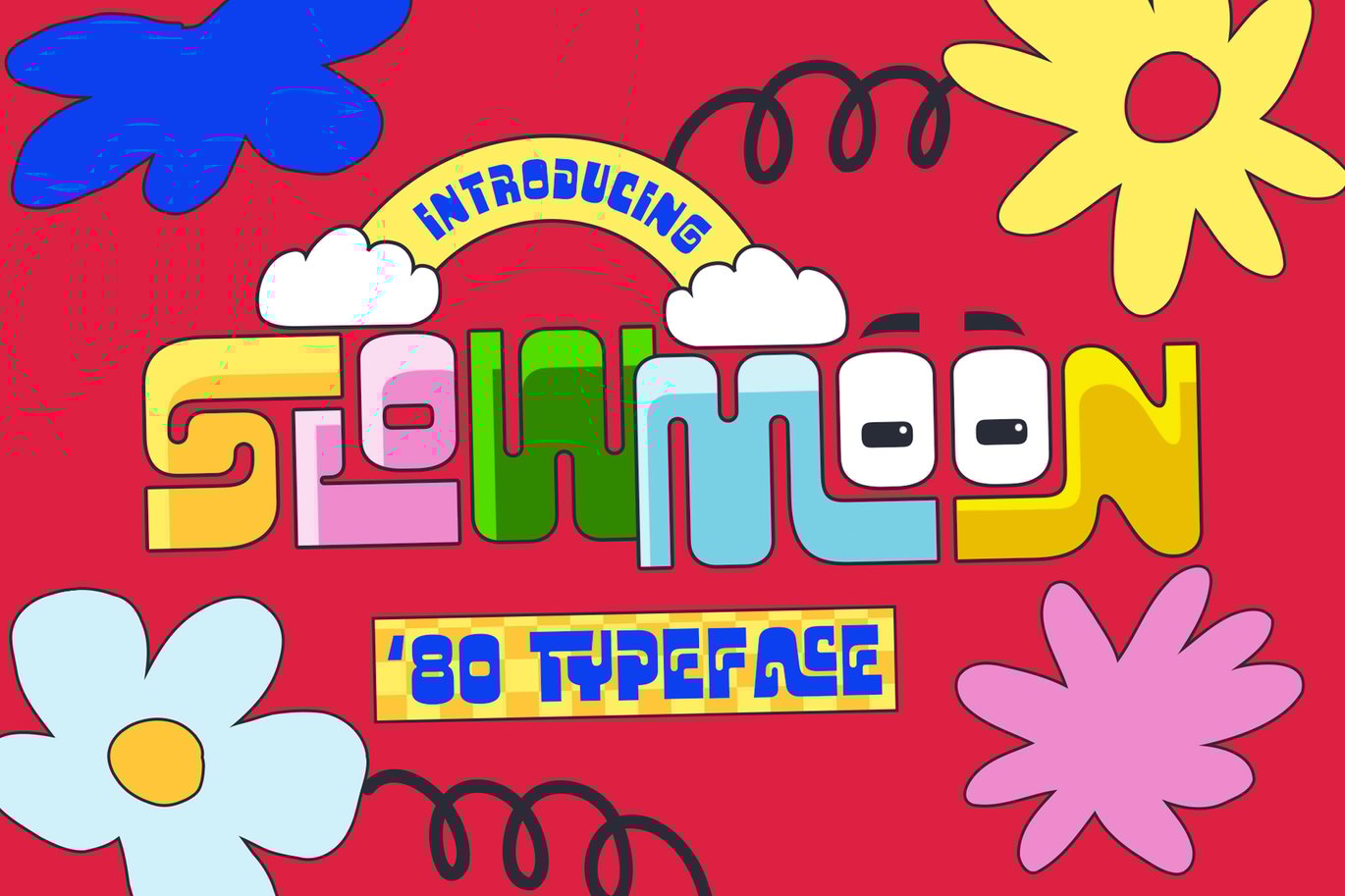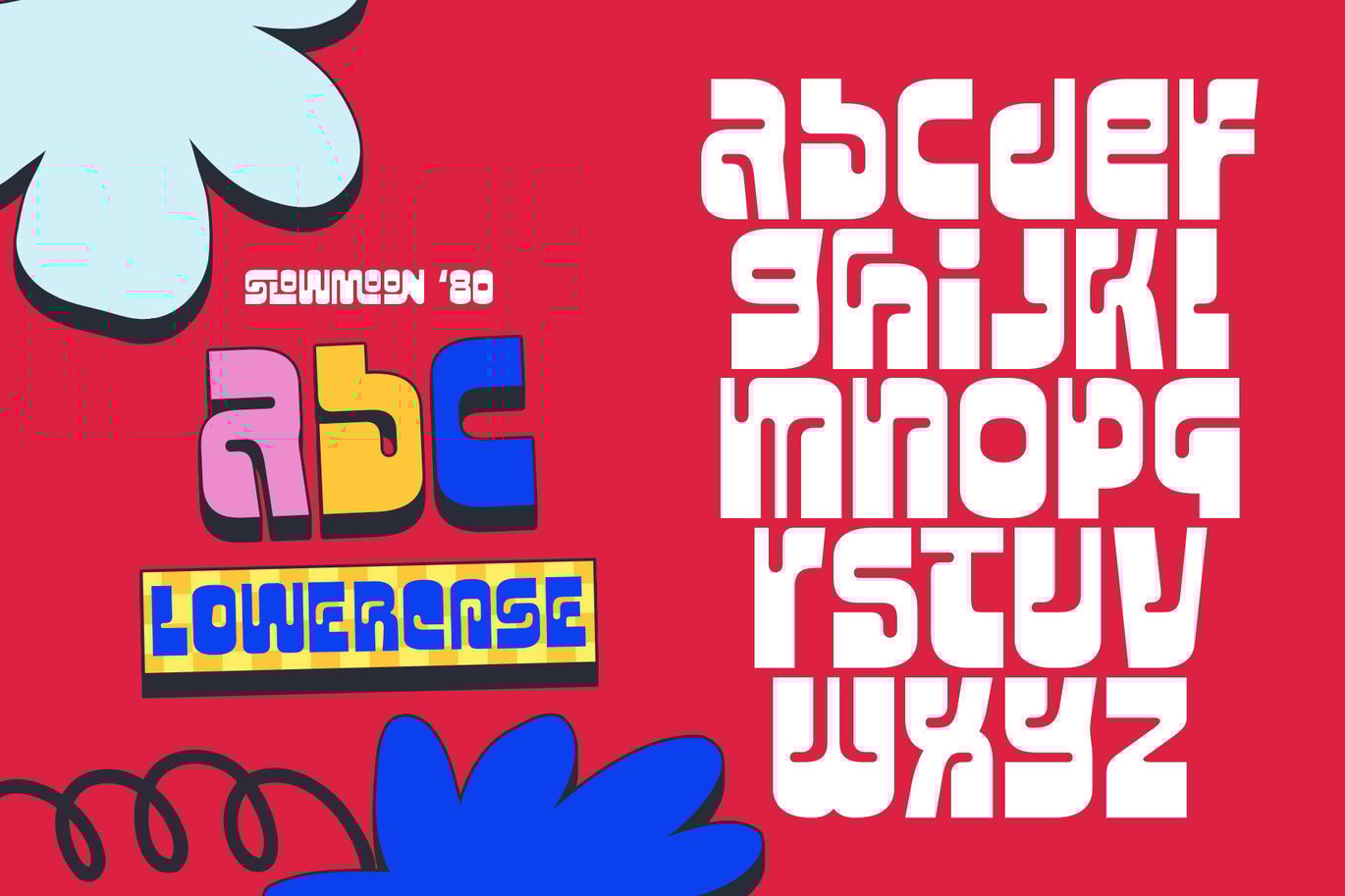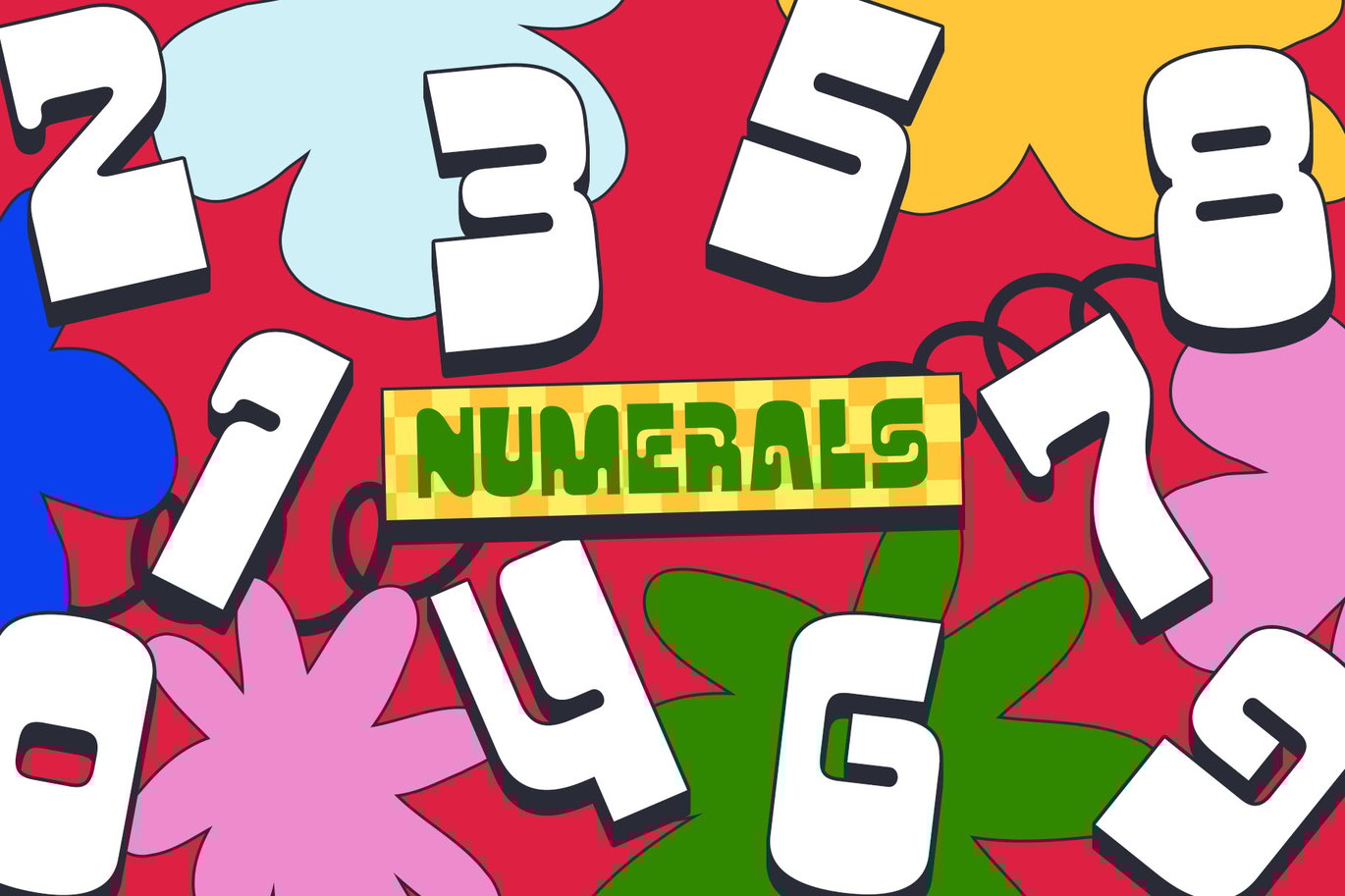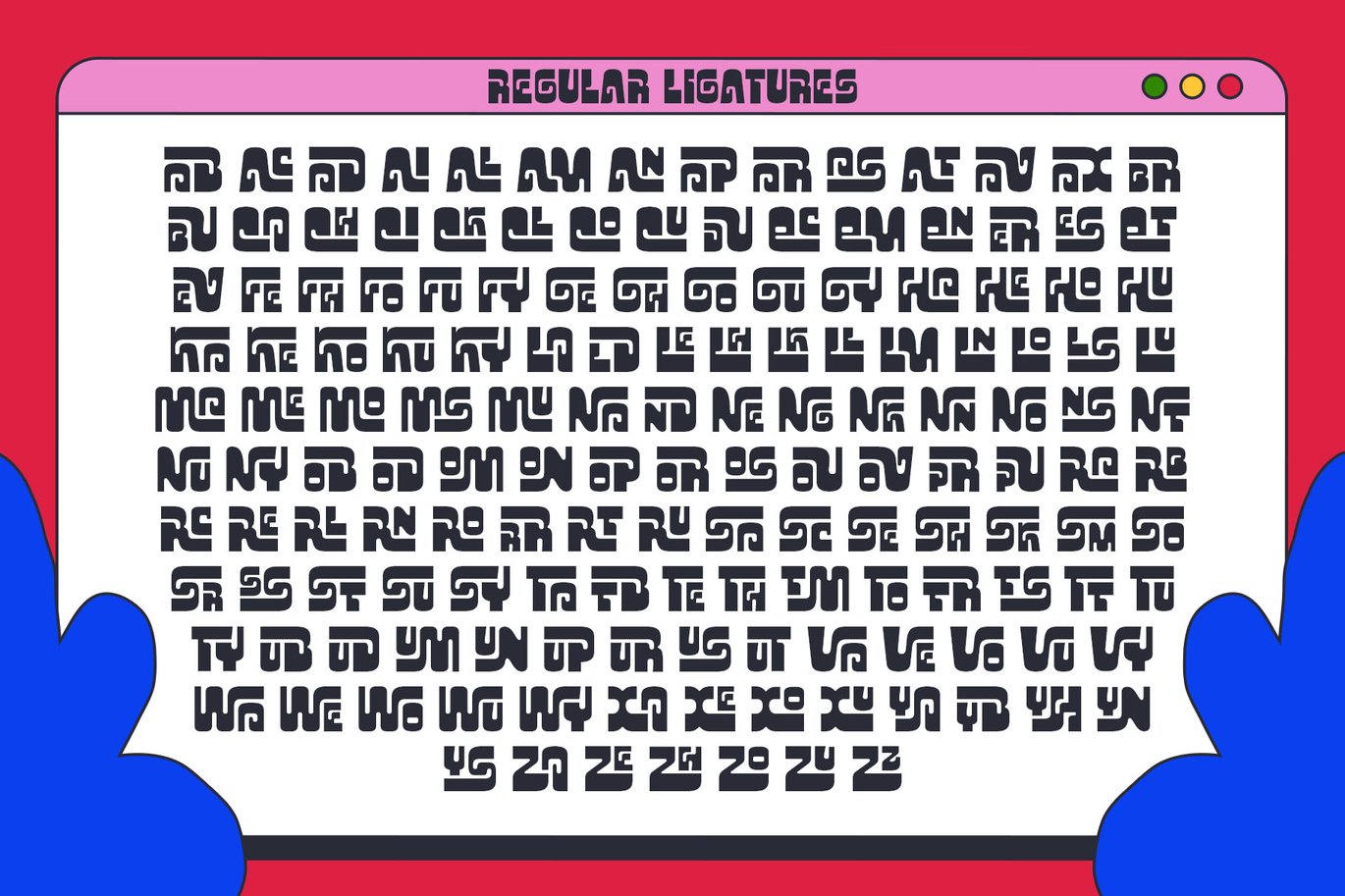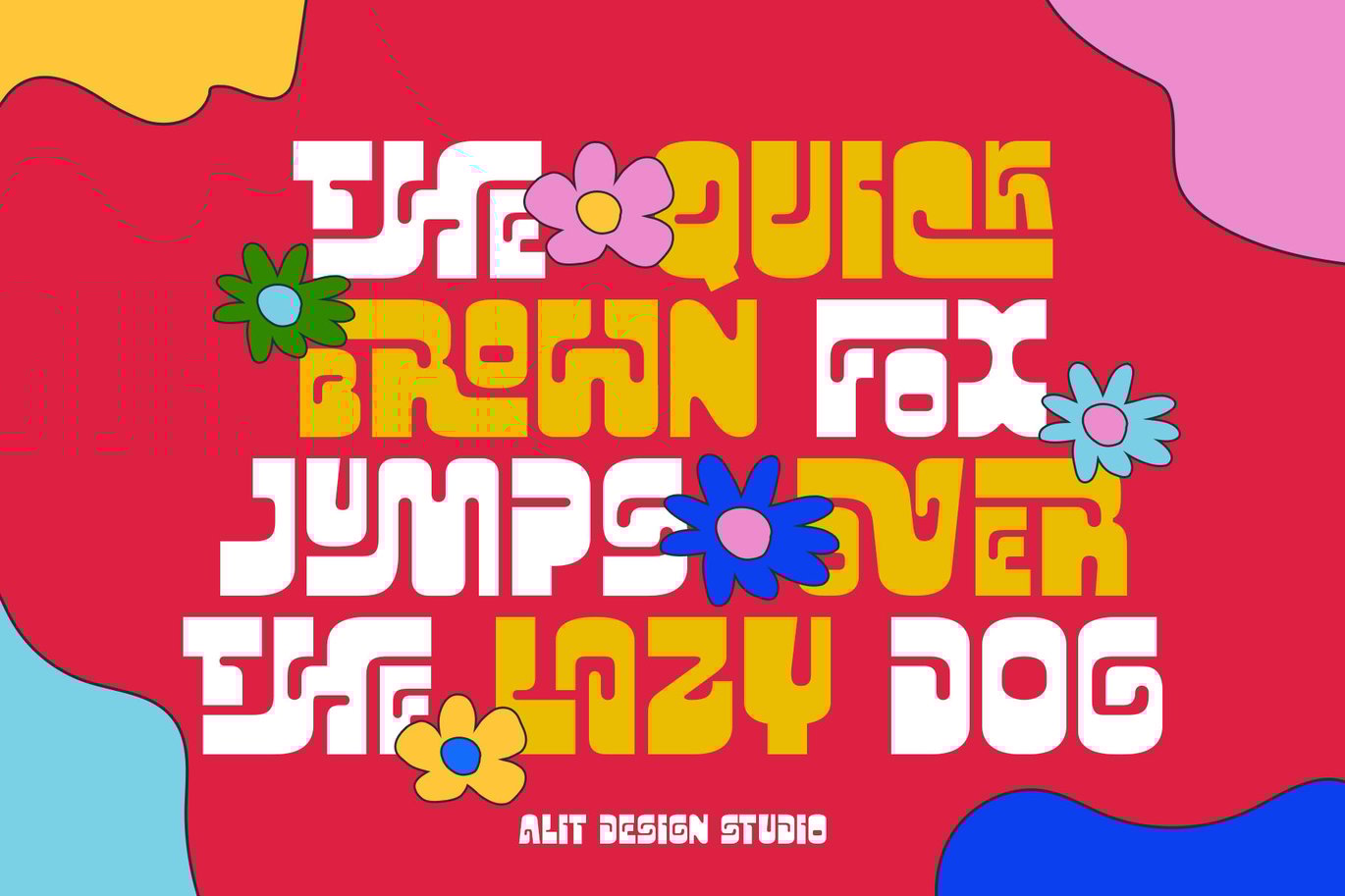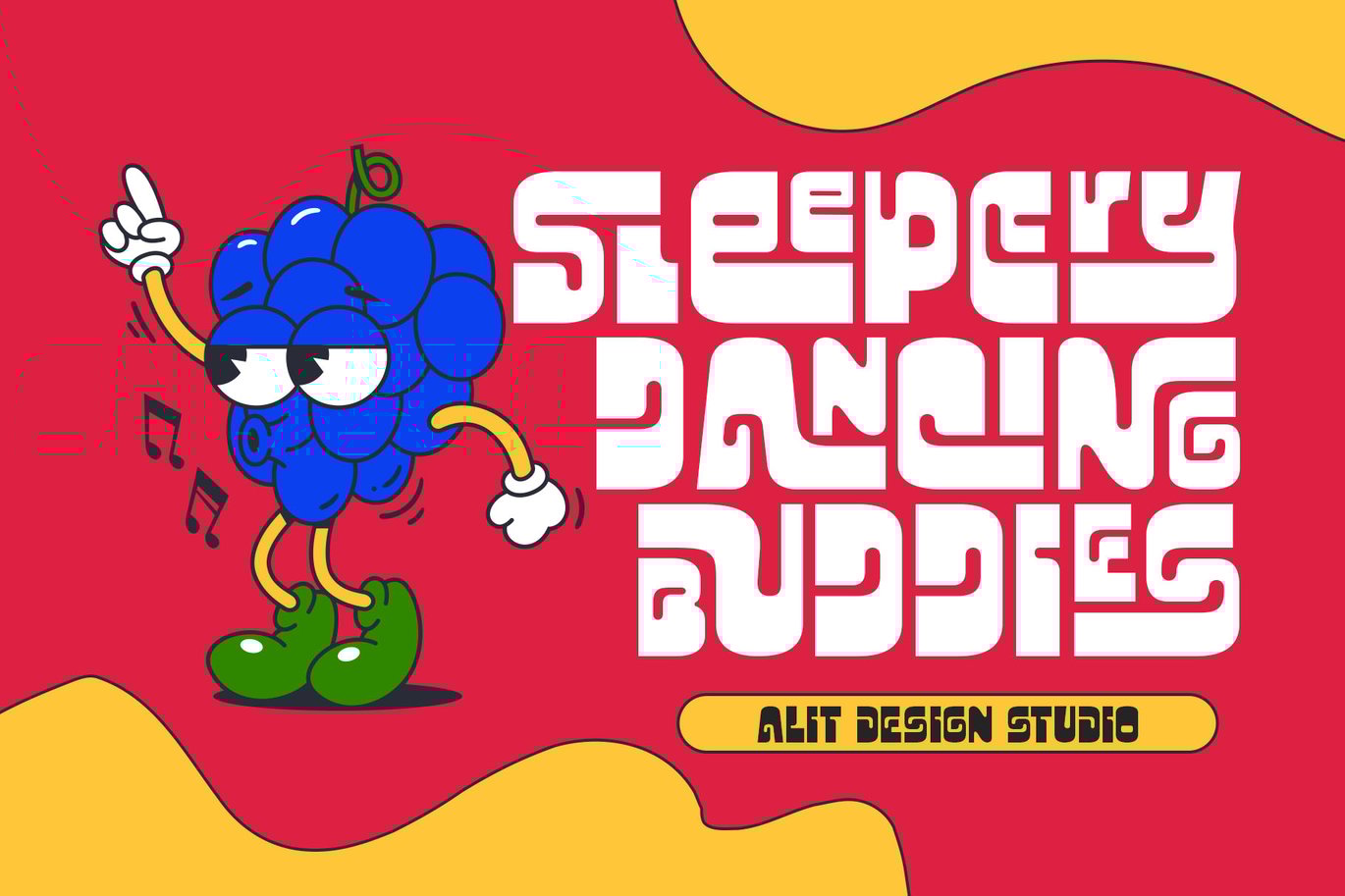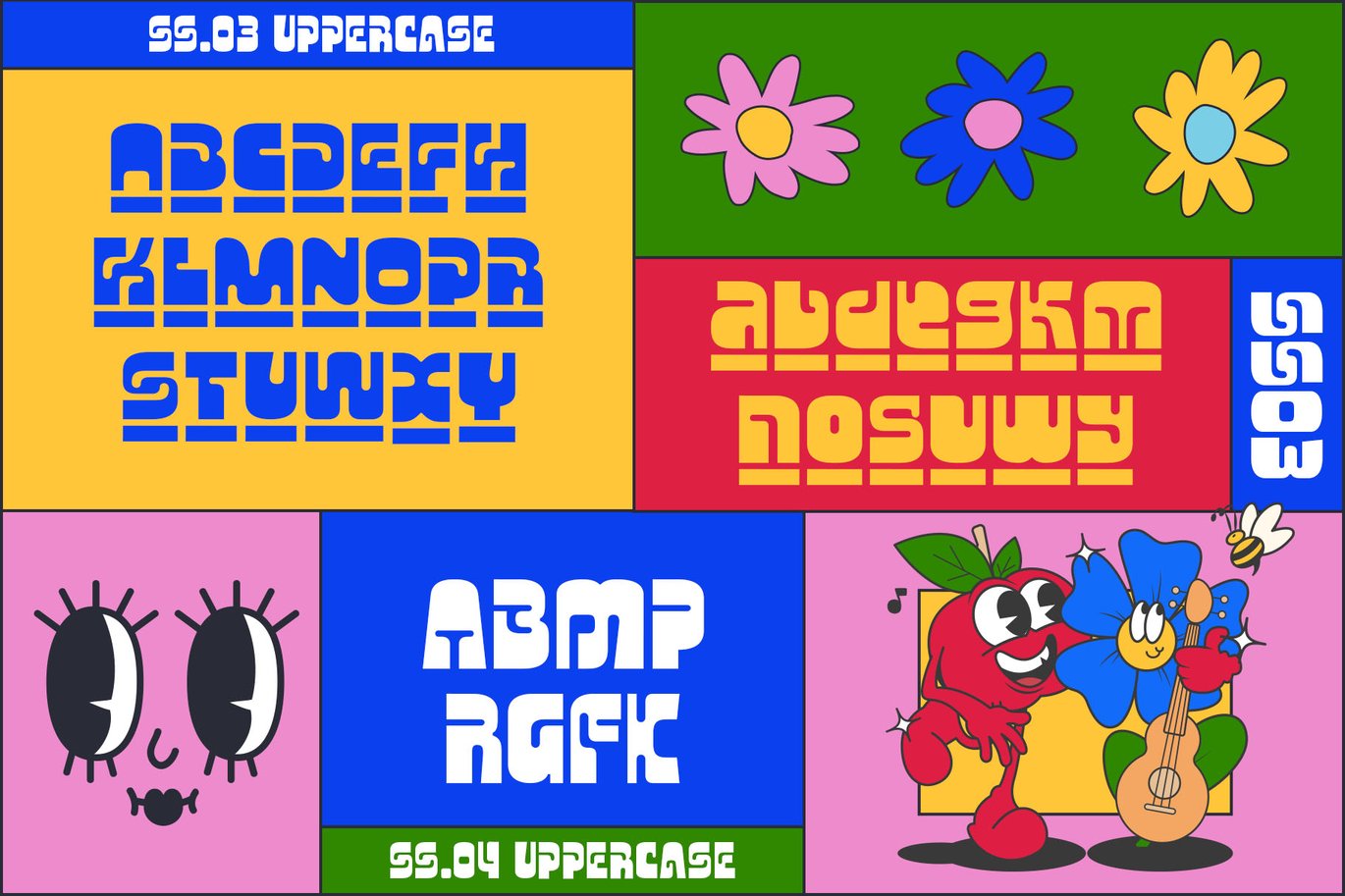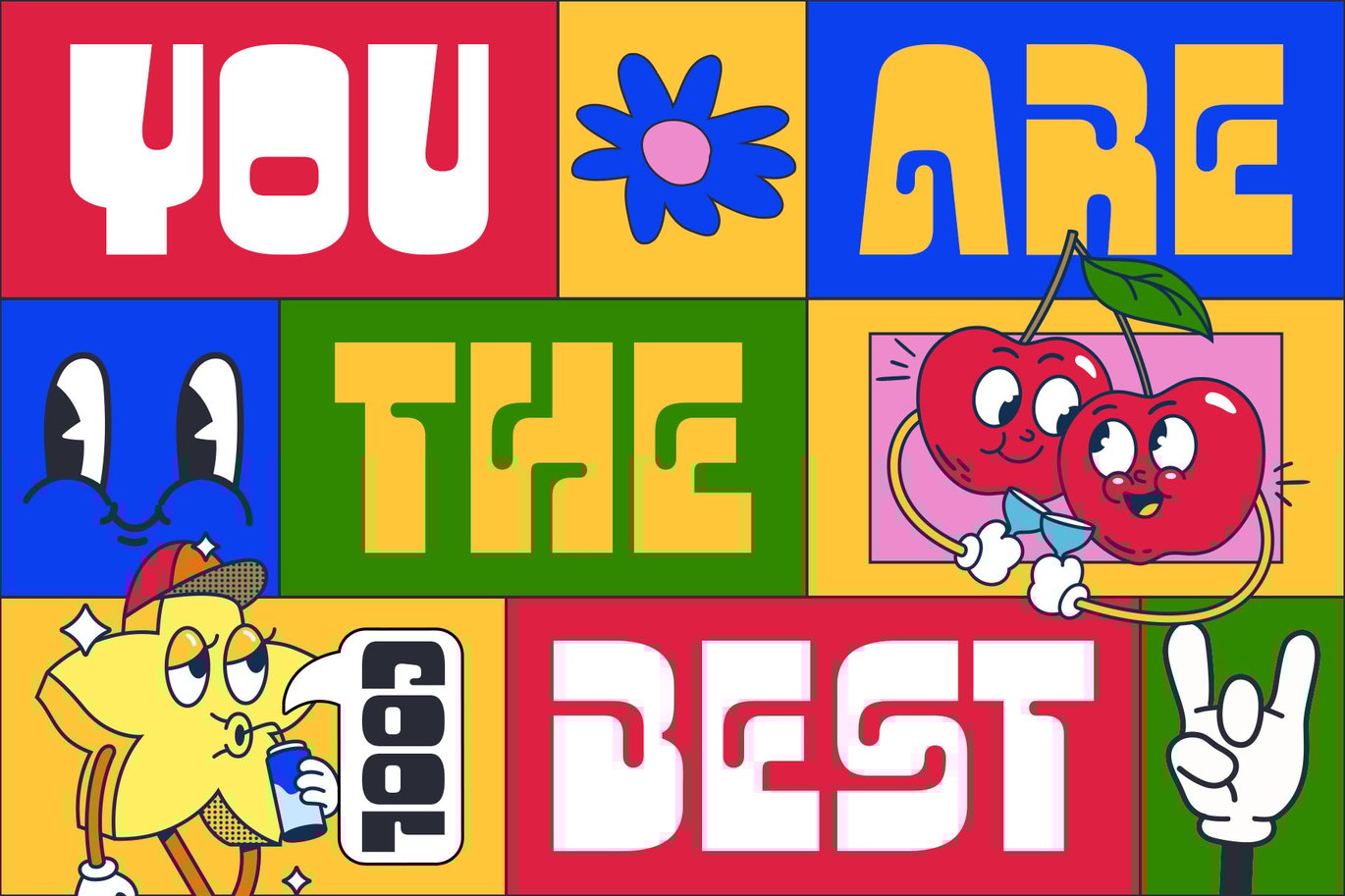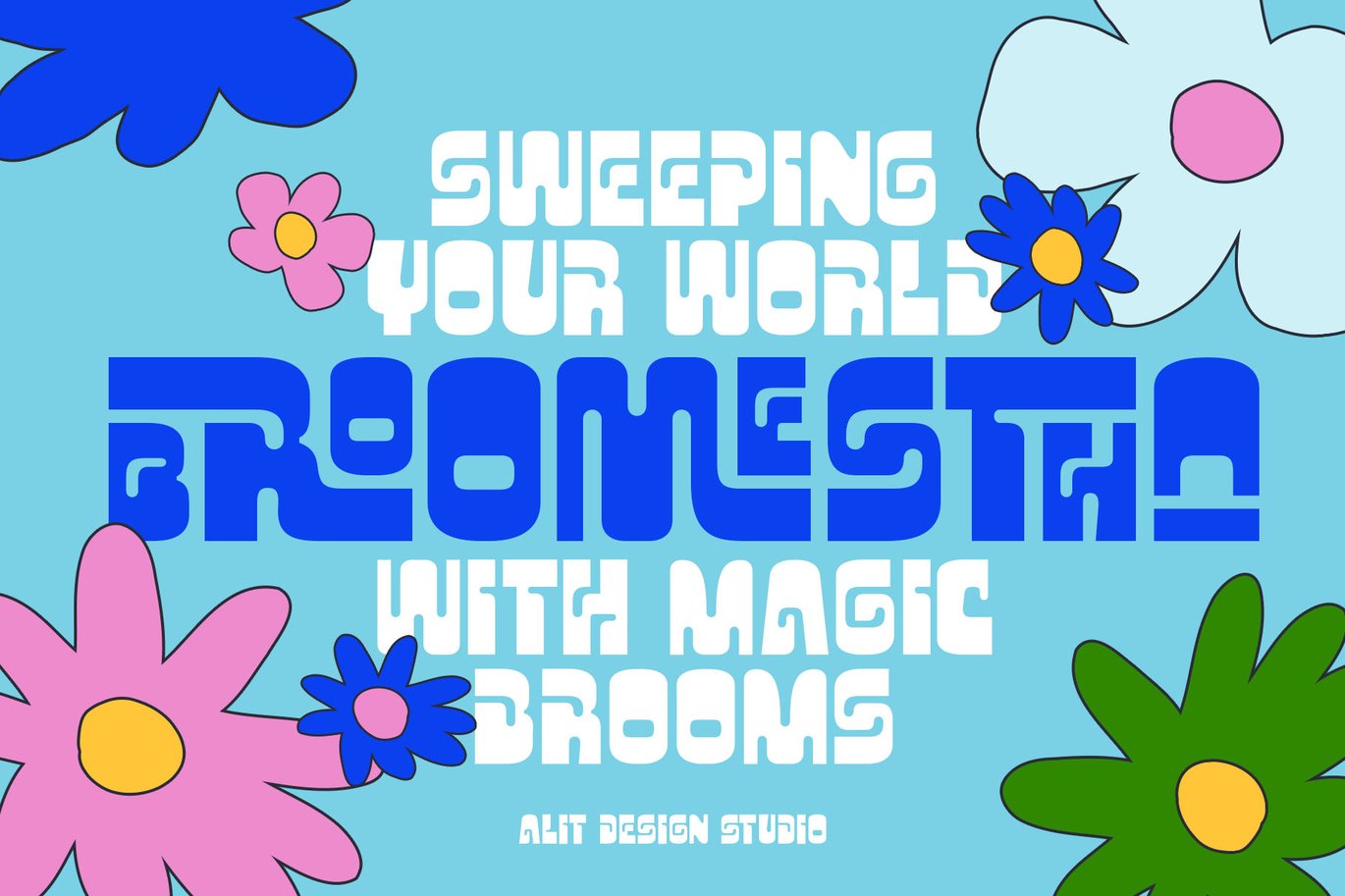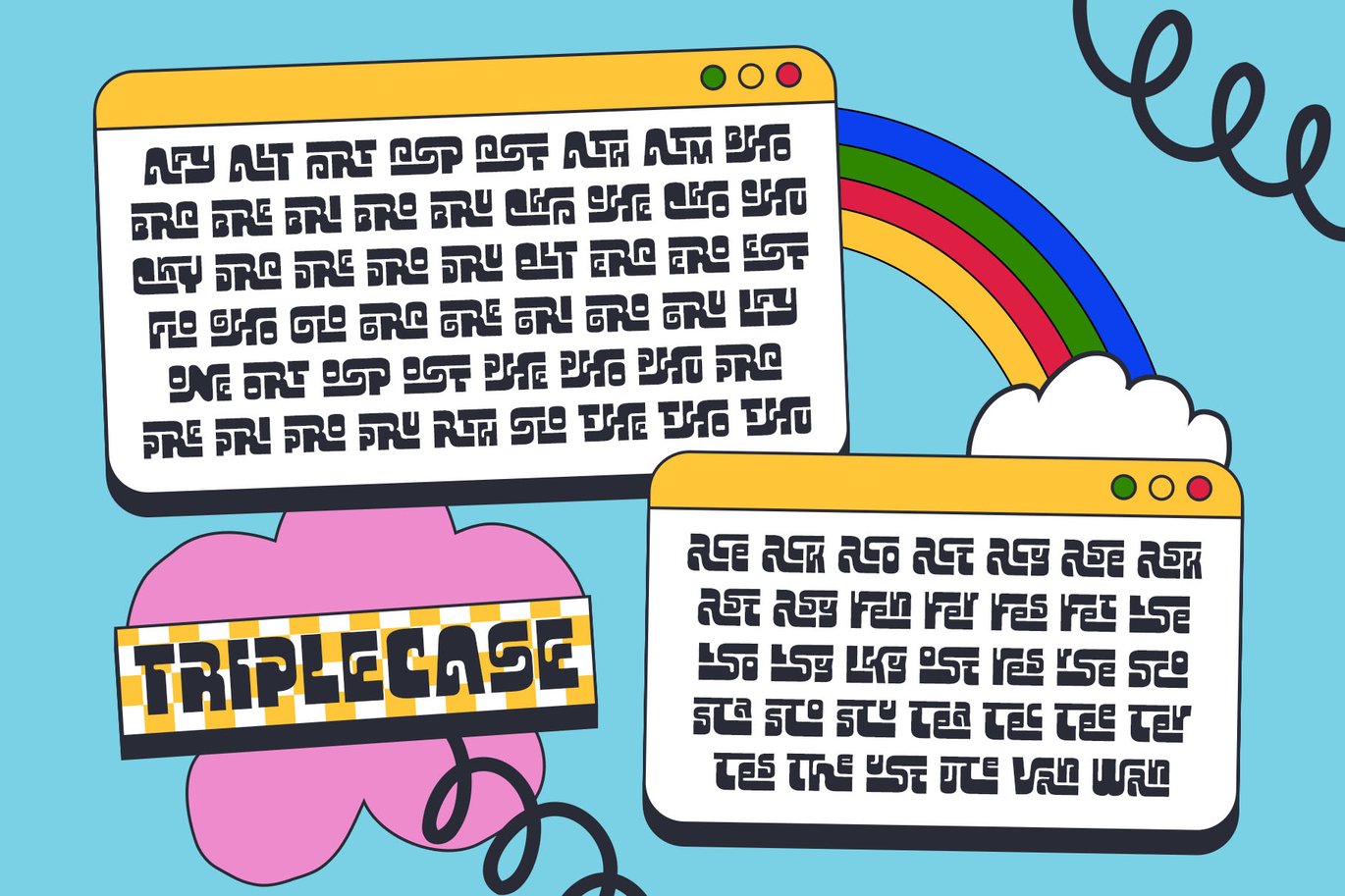
Slow Moon Retro Display Font
Introducing Slow Moon – The Retro Display Font with Timeless Elegance
Unveil the beauty of bygone eras with Slow Moon, a font that encapsulates the essence of retro design while offering an extensive range of dynamic alternatives and ligatures. With 976 meticulously crafted character glyphs, multilingual support, and PUA Unicode, Slow Moon is the quintessential choice for designers seeking to infuse a touch of nostalgia into their projects.
Key Features:
**Timeless Retro Charm: **
Slow Moon embodies the spirit of the past, bringing to life the aesthetics of vintage signage and typography. Its classic appeal effortlessly transports your audience back to the golden days of design. -
Dynamic Alternatives and Ligatures:
Slow Moon is not just a font; it’s a design toolkit. With an array of dynamic alternatives and ligatures, you can create eye-catching compositions that seamlessly flow from one character to the next. This feature allows you to achieve a genuinely unique and handcrafted look. -
976 Unique Glyphs:
Slow Moon’s extensive character set ensures that you’ll have the perfect letterform for any project. From decorative swirls to bold serifs, every character is designed with precision and care. -
Multilingual Support:
In our globalized world, Slow Moon understands the importance of inclusivity. It offers multilingual support, making it versatile for projects spanning multiple languages and regions. -
**PUA Unicode: **
Slow Moon is equipped with Private Use Area (PUA) Unicode encoding. This feature simplifies the process of accessing alternate characters and ligatures in various design software, enabling smooth integration into your creative workflow.
Ideal for a Range of Applications:
Slow Moon is the perfect choice for a myriad of design projects. Whether you’re crafting vintage-inspired posters, retro-themed branding, stylish packaging, or captivating web graphics, this font will lend an air of sophistication to your work. Its versatility allows it to effortlessly transition from glamorous and elegant to rugged and bold, depending on your creative vision.
Get Creative with Slow Moon:
Indulge in the allure of a bygone era and elevate your designs with Slow Moon. Its exquisite blend of retro charm, dynamic alternatives, ligatures, and extensive character set will empower you to create typography that stands the test of time. Whether you’re a seasoned designer or just starting your creative journey, Slow Moon is your trusted partner in delivering unique and unforgettable designs.